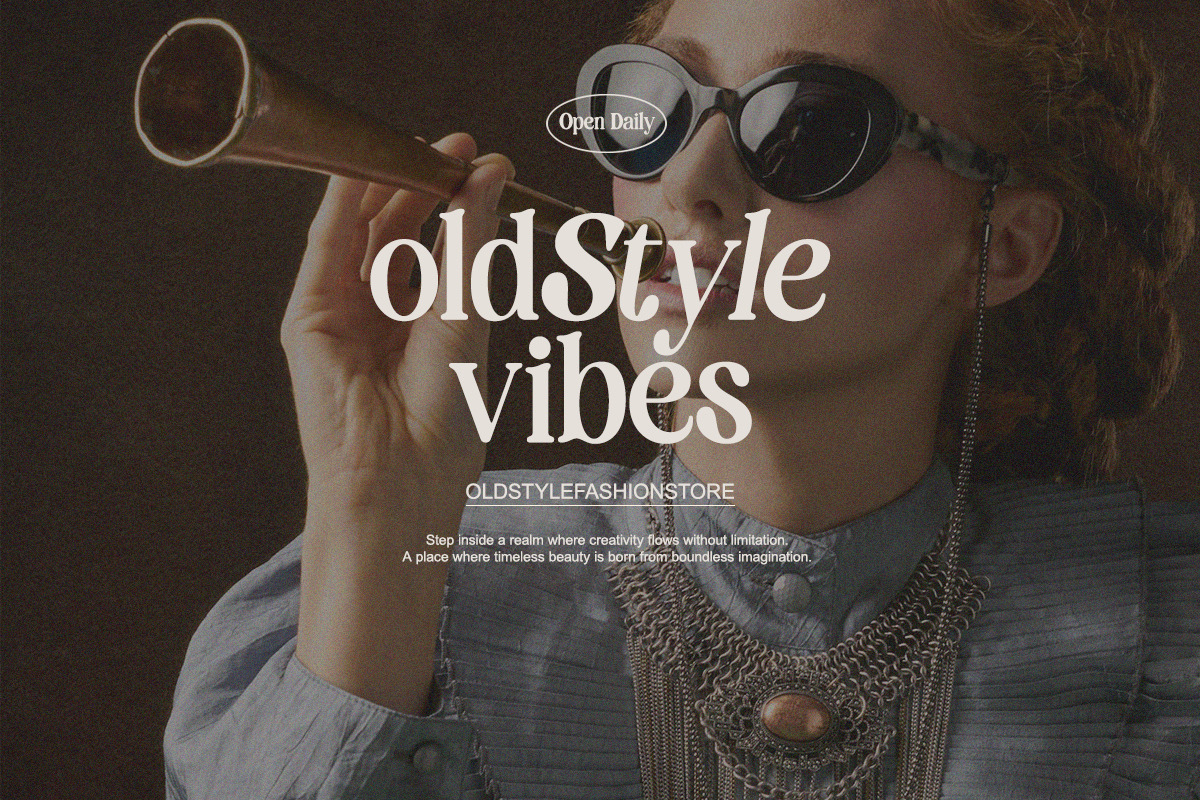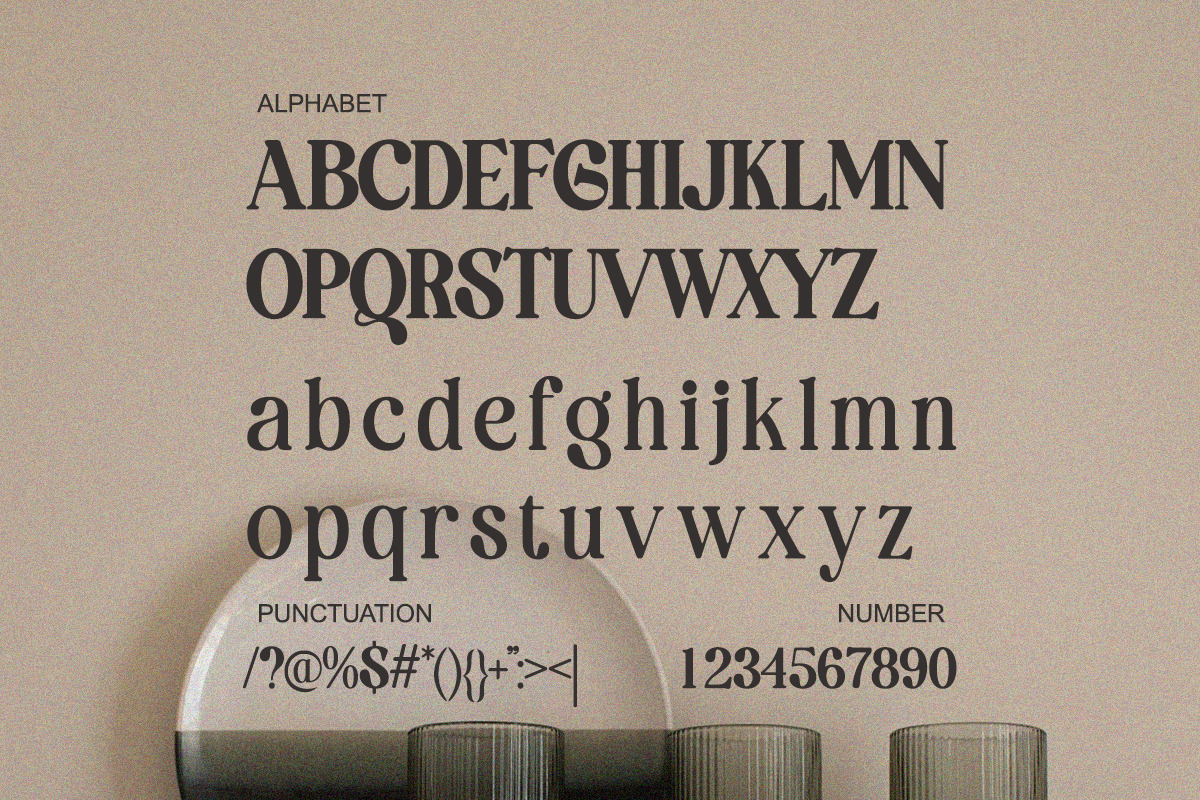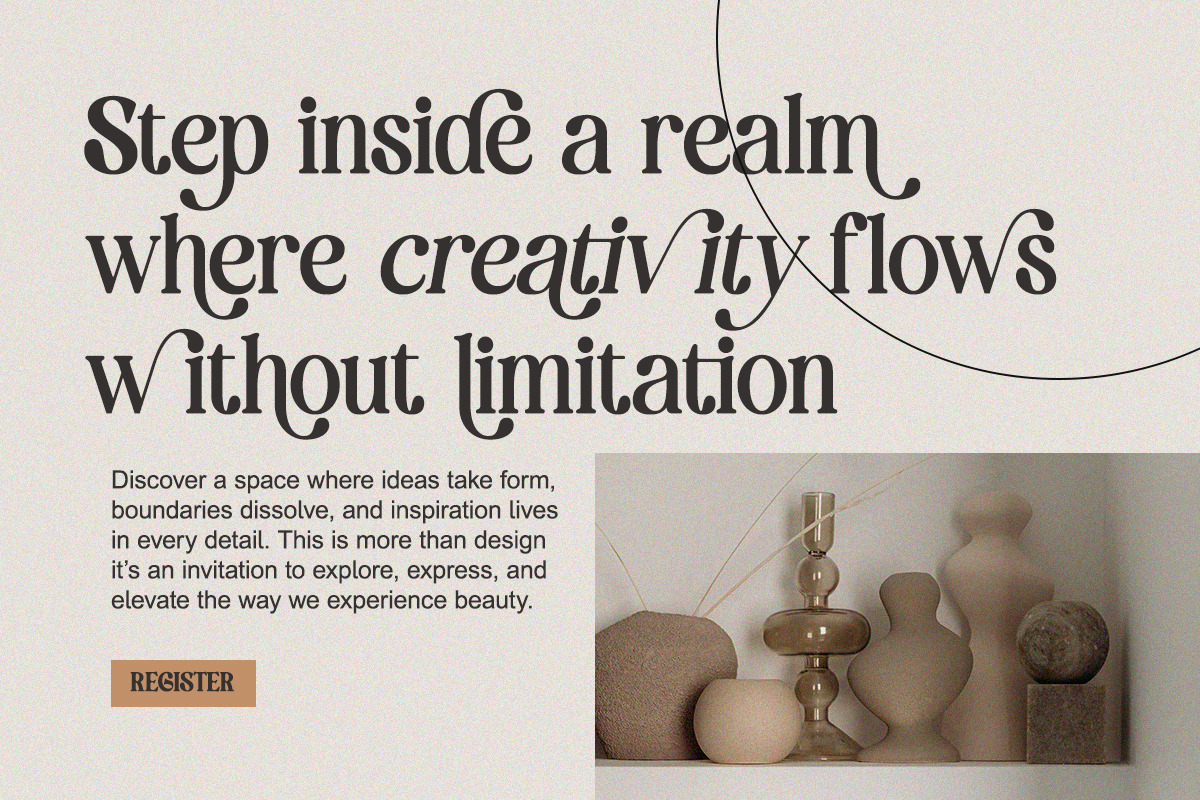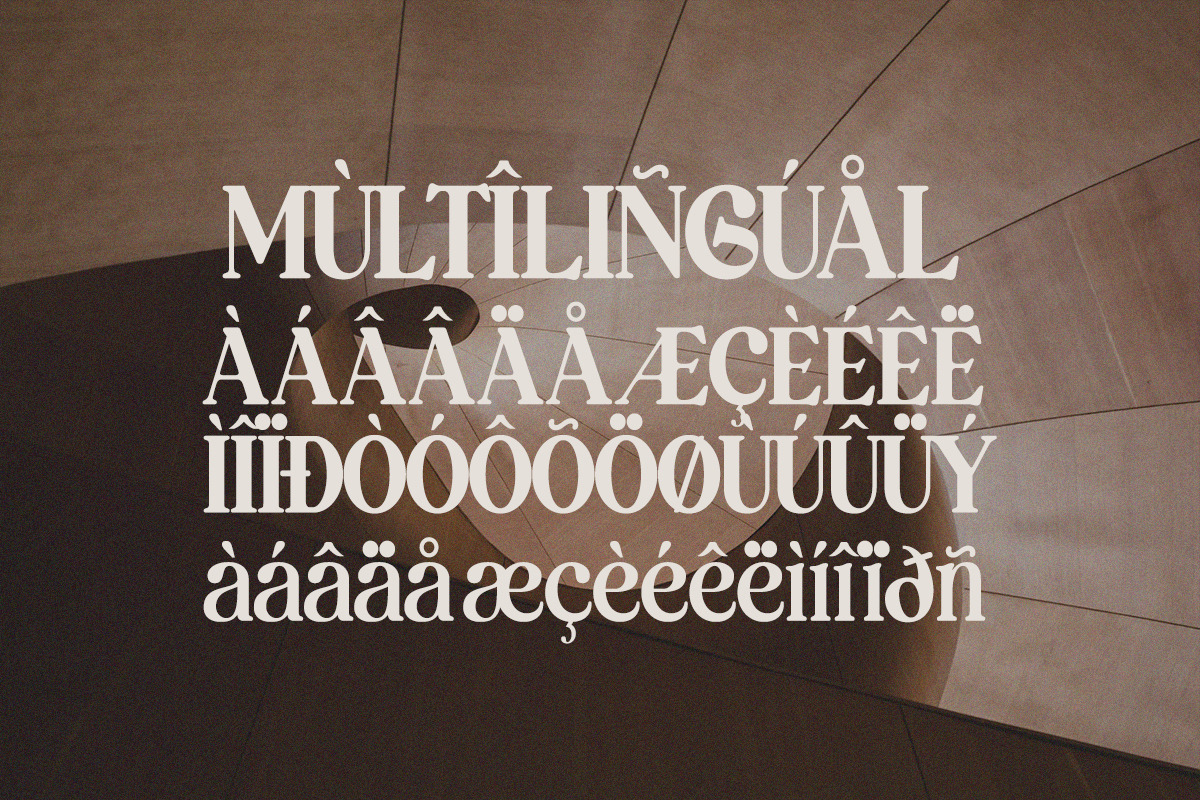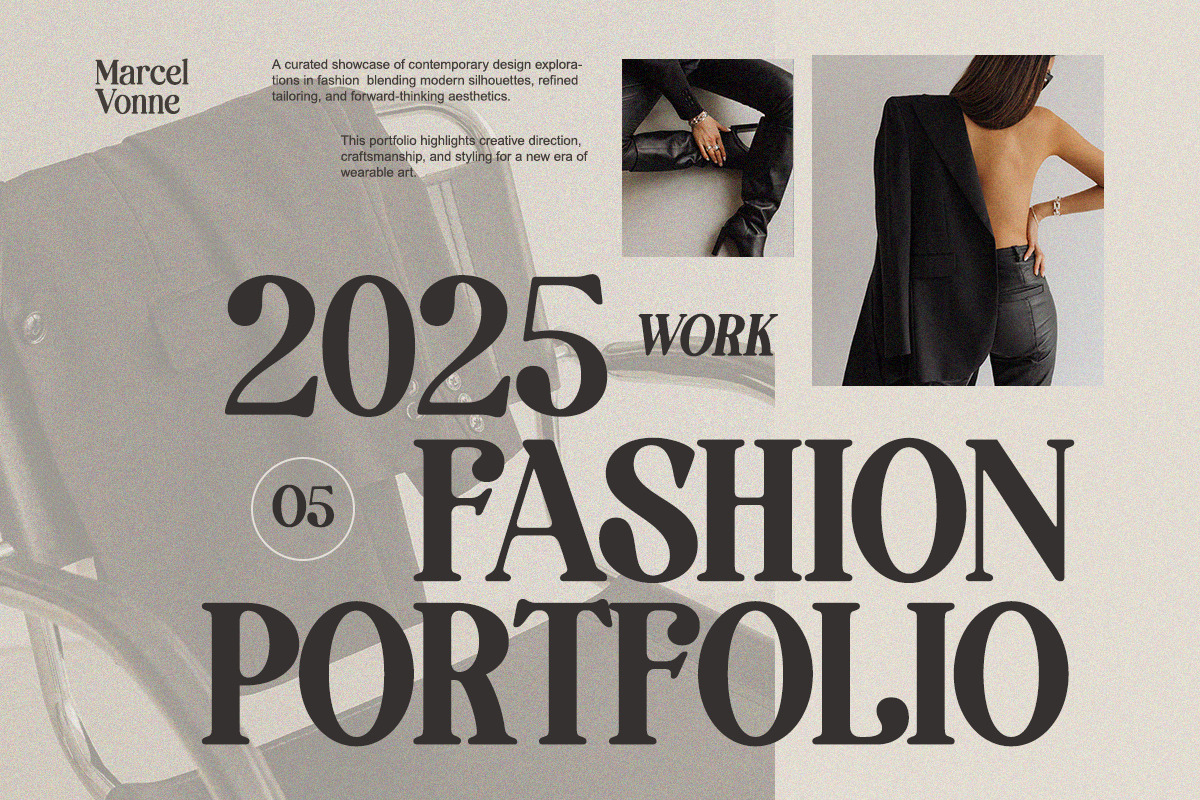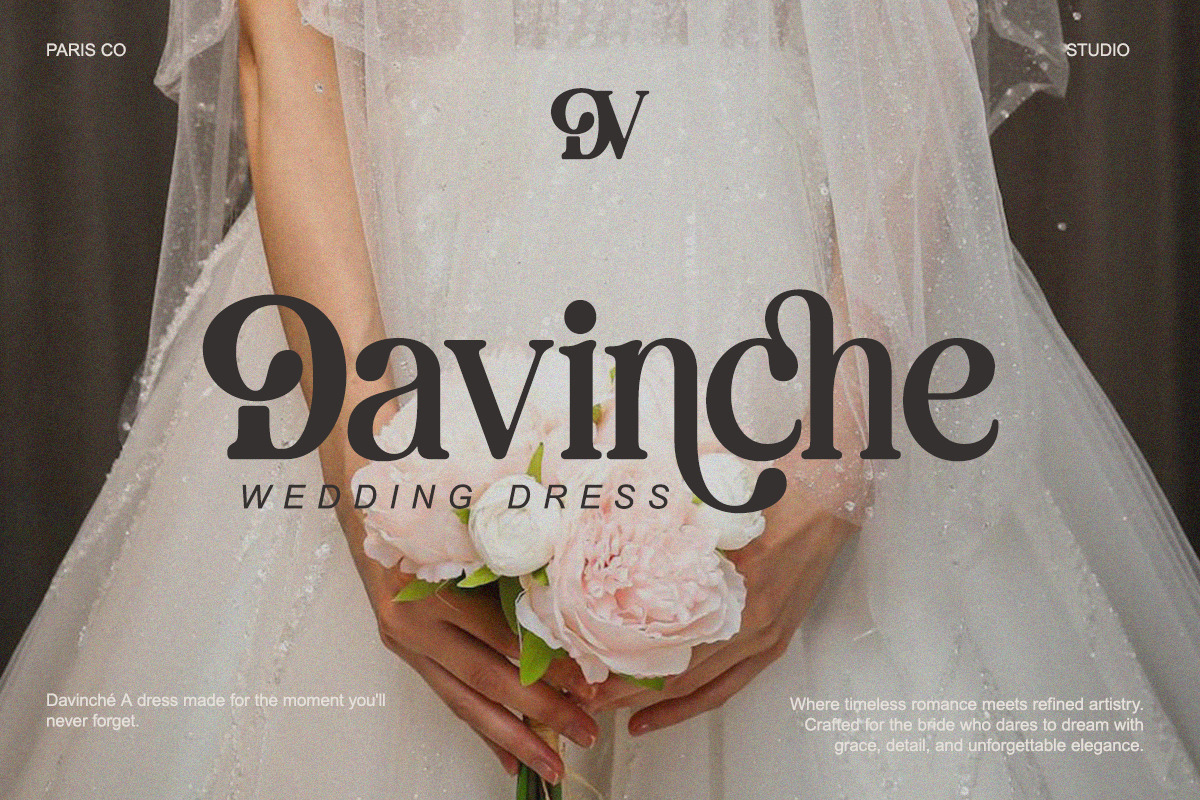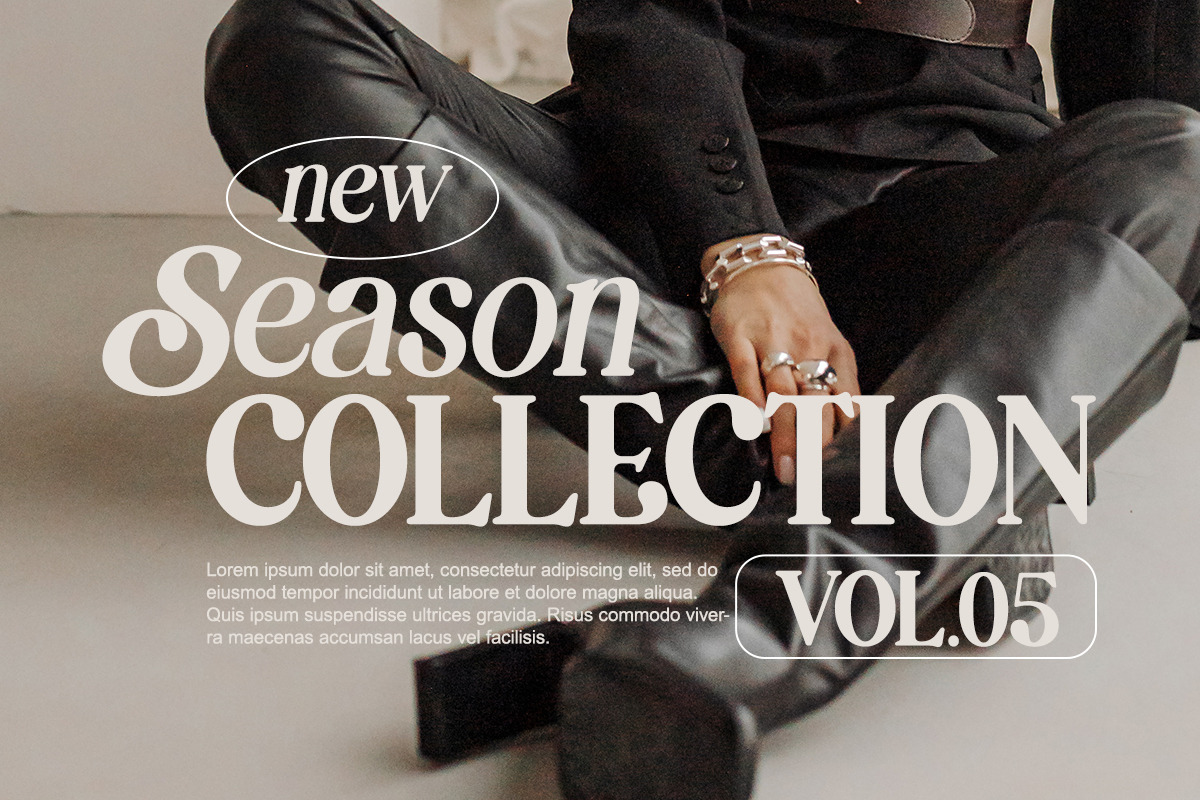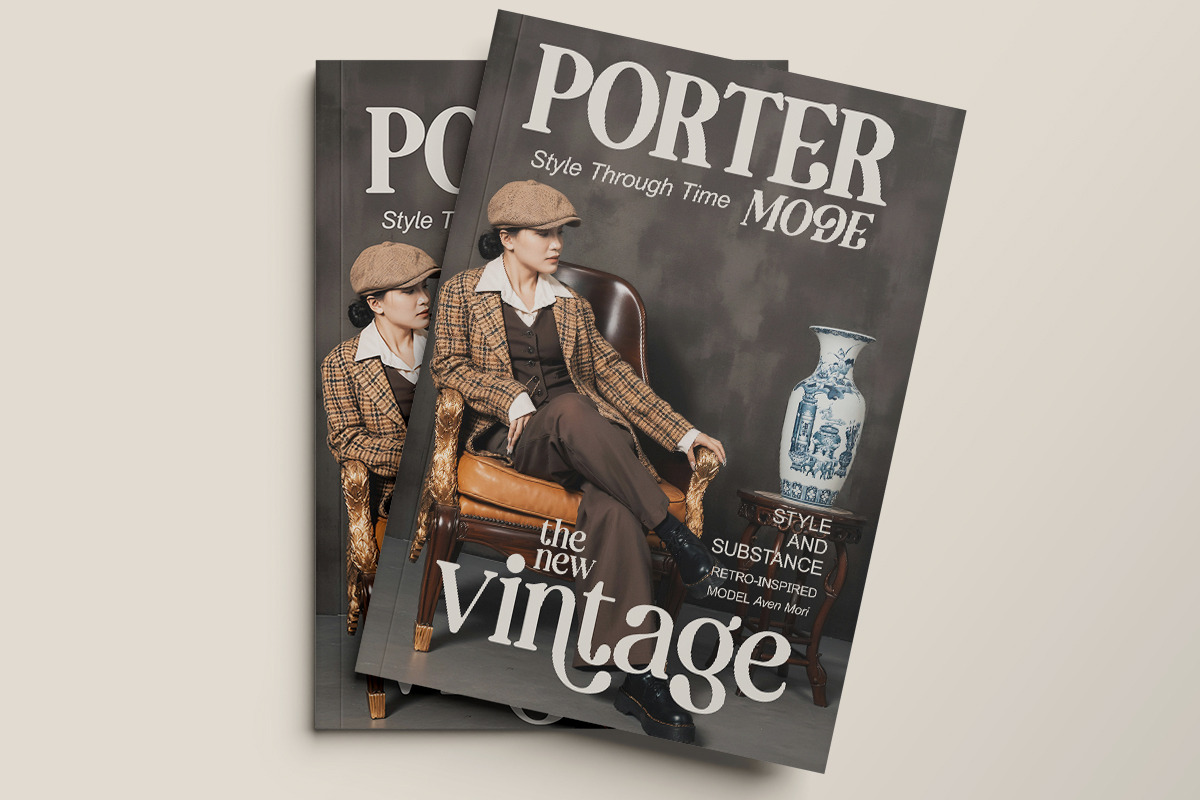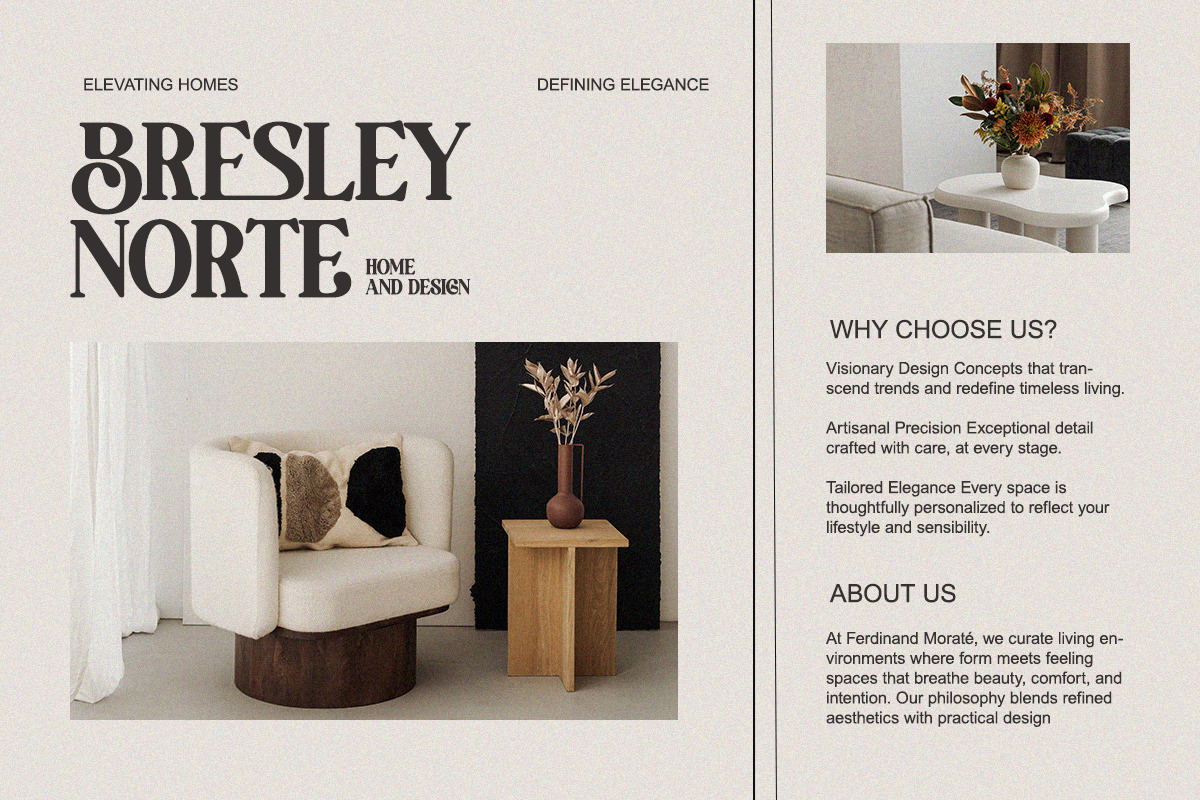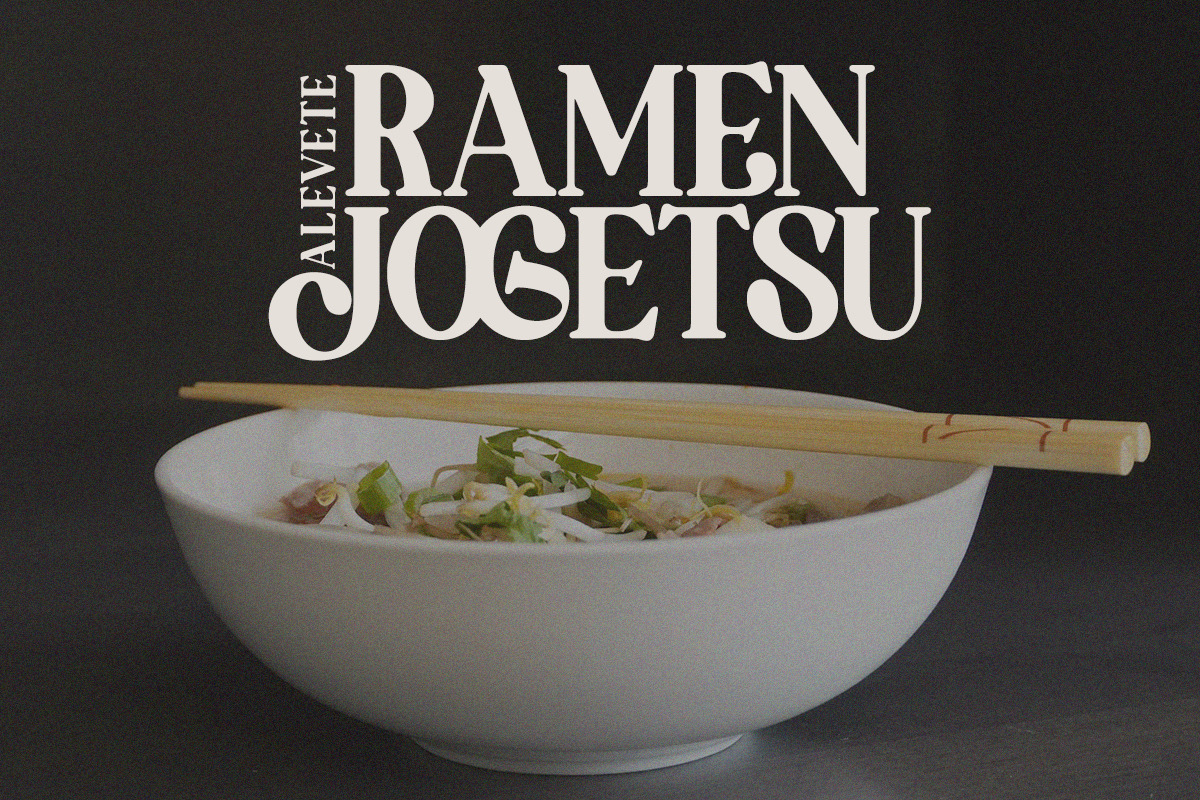
Bolding Century - Modern Elegant
Introducing Bolding Century – a modern elegant serif typeface inspired by timeless design and luxury typography.
With beautifully curved terminals and bold letterforms, this typeface brings sophistication, charm, and uniqueness to any layout. It perfectly blends vintage aesthetics with modern readability, making it a must-have for premium branding.
Designed for those who crave both statement and finesse, this font is your go-to tool for editorial elegance and strong brand identity.
- Regular & Italic
- Numerals & punctuations
- Smooth alternates & stylish ligatures
- Luxury brand identity
- Editorial layout & headlines
- Fashion & beauty packaging
- Classy logos & display titles
- Modern social media visuals
Elevate your visual language with Bolding Century and make every word feel iconic.